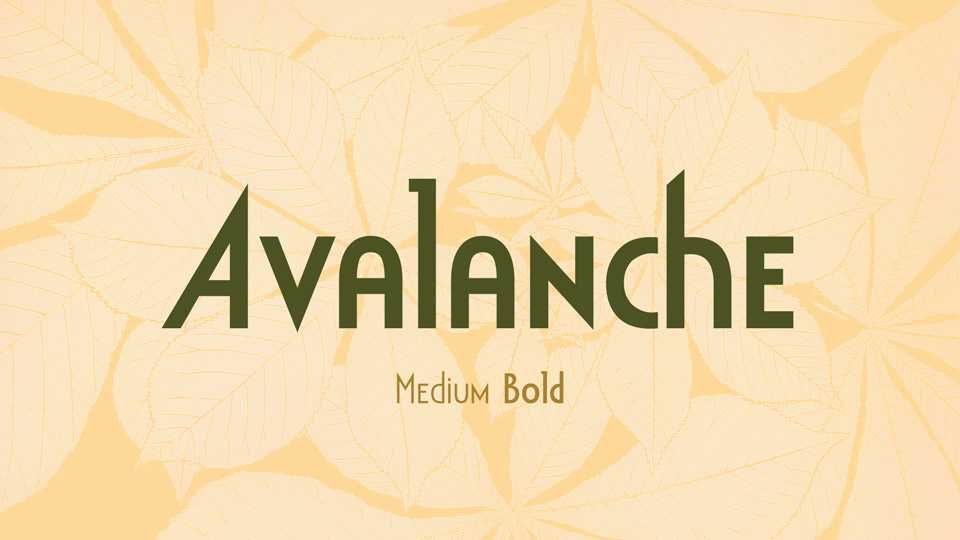
Download Avalanche typeface, a retro font family in two weights with Art Deco look based loosely on Avant Garde and Peignot. Avalanche font can be user for design of retro posters, headlines and short text blocks, signage and other display use.
Designer: Jason Reed